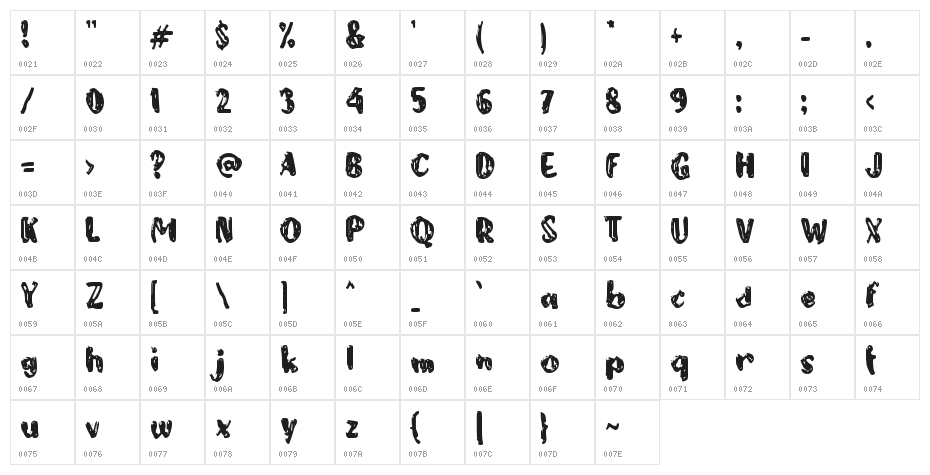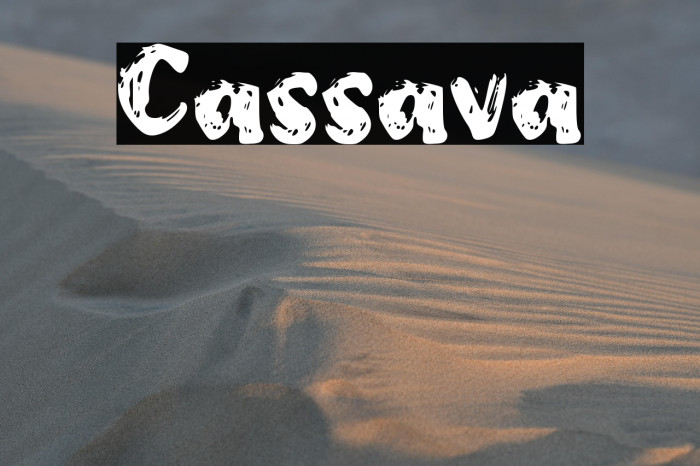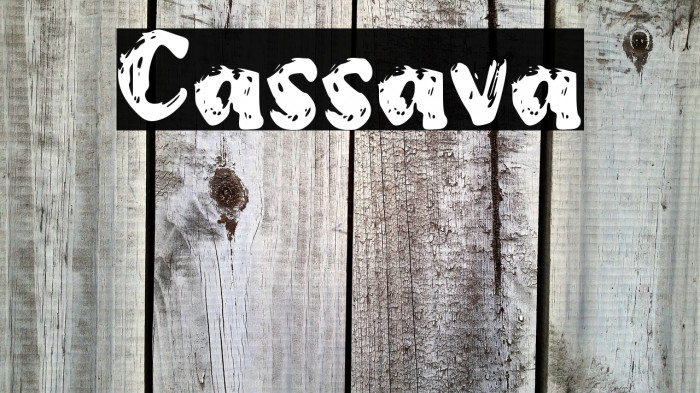
Cassava Font
Cassava Description
This font features a bold and dynamic style with a distressed, grunge-like texture. The characters are thick and heavy, giving a strong visual impact. The irregular edges and rough texture create a sense of movement and energy, making it ideal for designs that require a bold statement. The uppercase and lowercase letters maintain a consistent style, while the numbers and special characters complement the overall aesthetic. The font's unique appearance makes it suitable for creative projects that aim to capture attention and convey a sense of edginess.
| Proposed Projects | Ideal for posters, album covers, branding for edgy products, and any design needing a bold, artistic touch. |